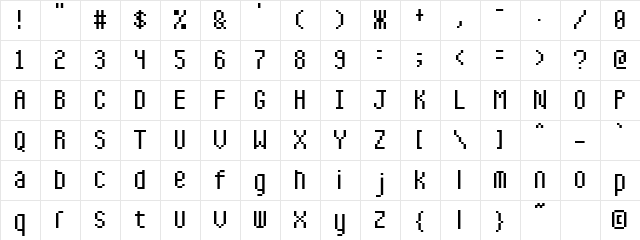
MD Thaitype A Regular
Design Context for MD Thaitype A Typeface
MD Thaitype A takes a measured approach to typography — its balanced proportions and neutral character make it a reliable workhorse for both digital and print work.